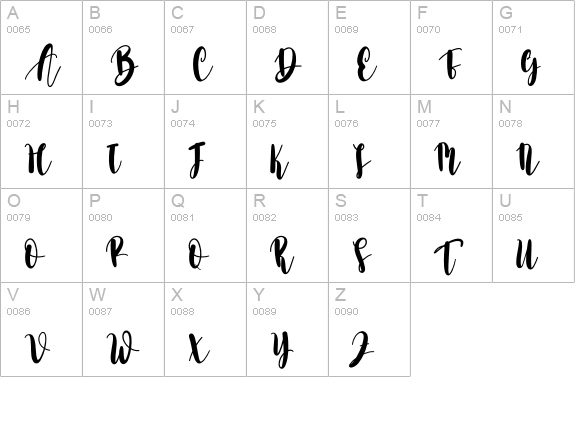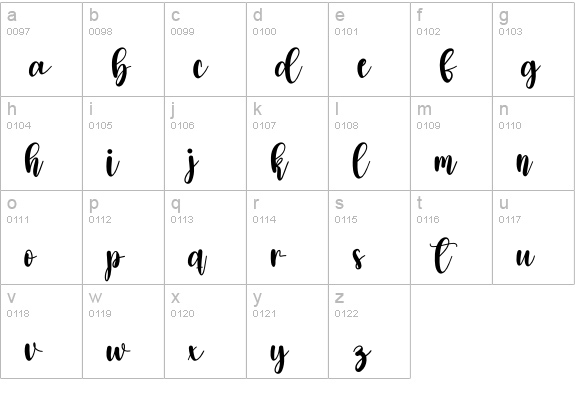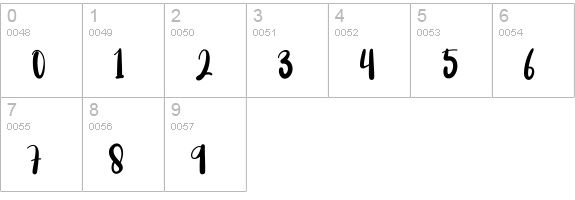
Melonita Font Details
Melonita is a free for personal use font in the Script > Handwritten category, designed by scratchones. It has been downloaded 7 times and is available for Windows, Mac and Linux.
Melonita font is a versatile and elegant typeface that exudes sophistication and charm. With its stylish curves and clean lines, this font is perfect for a wide range of design projects, from branding to editorial design. Whether you're creating a sleek logo or designing a modern website, Melonita font will add a touch of class to your work.